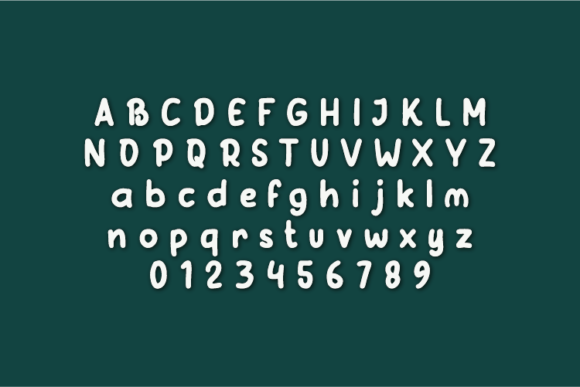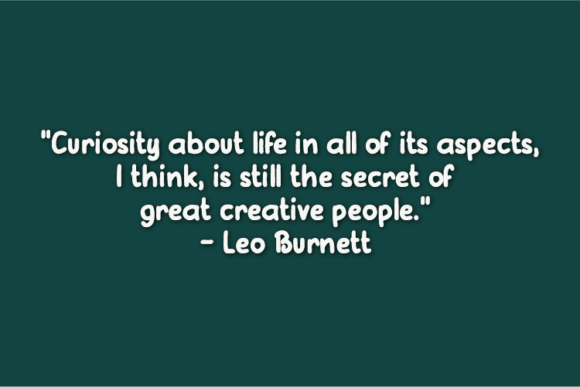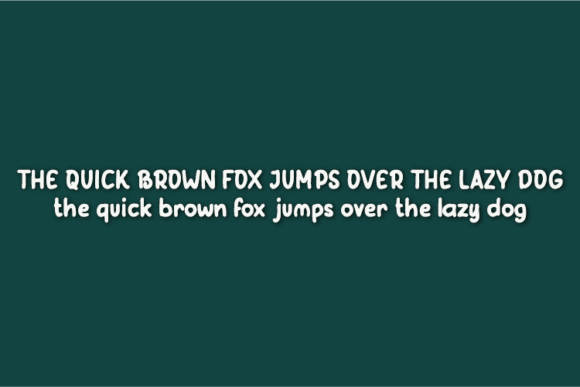
Cinnamon Font: A Unique and Natural Display Font
In the world of typography, fonts play a crucial role in conveying messages, expressing emotions, and adding personality to designs. Among the numerous fonts available, Cinnamon Font stands out for its distinctive and natural charm. In this article, we’ll explore the features, benefits, and uses of Cinnamon Font, making it a must-know for designers, crafters, and typography enthusiasts.
The Story Behind Cinnamon Font
Cinnamon Font is a natural display font that has gained popularity for its unique approach to typography. Unlike other fonts that are created by modifying the nodes of characters, Cinnamon Font is made without changing a single node in each character’s indentation. This approach preserves the organic and natural feel of the font, making it interesting and distinctive.
Key Features of Cinnamon Font
- Natural and Organic: Cinnamon Font boasts a natural and organic look, making it perfect for designs that require a personal touch.
- Unique Indentation: The font’s unique indentation approach sets it apart from other fonts, adding a touch of elegance and sophistication.
- Versatile: Cinnamon Font is suitable for a wide range of design projects, from quotes and notes to tees and other merchandise.
- Easy to Read: Despite its unique features, Cinnamon Font remains easy to read, making it a great choice for body text and headings.
Benefits of Using Cinnamon Font
Cinnamon Font offers several benefits to designers and crafters. Its unique features make it an excellent choice for:
- Adding Personality to Designs: Cinnamon Font’s natural and organic look adds a personal touch to designs, making them more engaging and relatable.
- Creating Eye-Catching Headings: The font’s distinctive indentation and elegant curves make it perfect for creating eye-catching headings and titles.
- Enhancing Brand Identity: Cinnamon Font can be used to create a unique brand identity, setting businesses apart from their competitors.
Uses of Cinnamon Font
Cinnamon Font is a versatile typeface that can be used in various design projects, including:
- Quotes and Notes: The font’s elegant curves and natural look make it perfect for creating inspiring quotes and notes.
- T-Shirts and Merchandise: Cinnamon Font is a great choice for designing t-shirts, hoodies, and other merchandise.
- Posters and Flyers: The font’s unique features make it suitable for creating eye-catching posters and flyers.
- Digital Media: Cinnamon Font can be used in digital media, such as social media graphics, blog posts, and website headers.
Tips for Using Cinnamon Font
To get the most out of Cinnamon Font, follow these tips:
- Use it as a Display Font: Cinnamon Font is best used as a display font, making it perfect for headings and titles.
- Pair it with Other Fonts: Experiment with pairing Cinnamon Font with other fonts to create a unique and harmonious typography.
- Adjust the Size and Color: Adjust the size and color of Cinnamon Font to create visual hierarchy and add emphasis to your designs.
Cinnamon Font is a unique and natural display font that offers a fresh approach to typography. Its distinctive indentation and elegant curves make it perfect for designers and crafters looking to add a personal touch to their designs. With its versatility, ease of use, and range of applications, Cinnamon Font is a must-have for anyone looking to elevate their typography game.